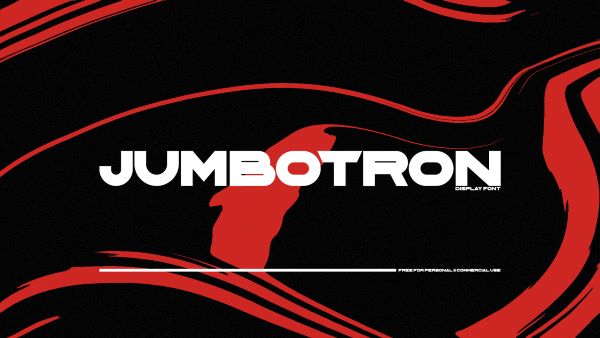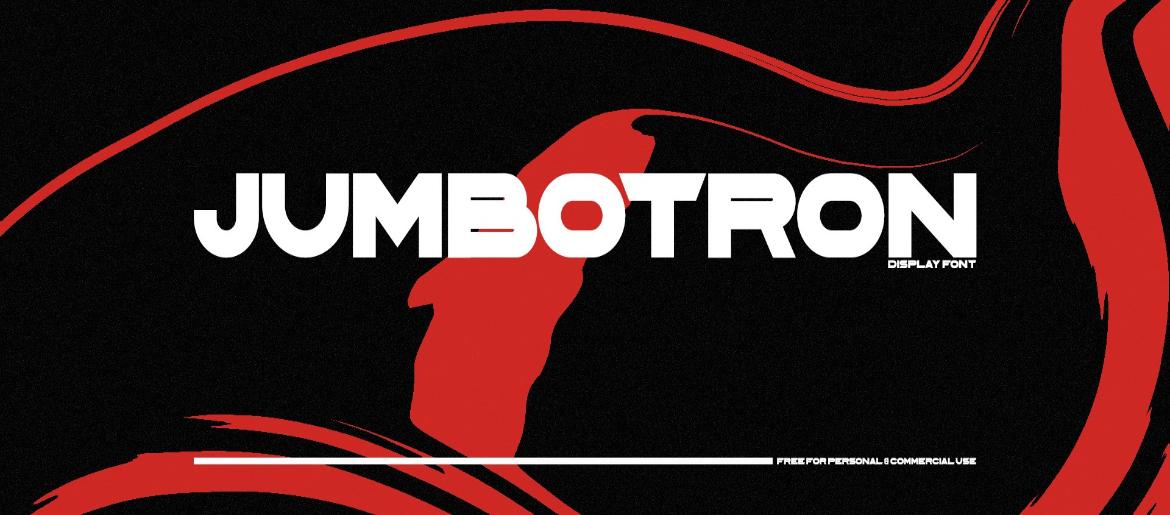
Jumbotron Font
Jumbotron by Ian Langley is a free sans-serif display typeface from New York-based designer Ian Langley — bold, modern, and built for maximum visual presence. Its clean geometric construction and strong stance give it a versatile range of applications spanning sports branding, gaming, futuristic UI design, and any context that calls for a commanding, no-nonsense headline face. The name itself is well chosen: this is a typeface designed to read across distances, in arena-scale contexts where clarity and impact are non-negotiable. Released under a Standard Commercial License, it is genuinely free for both personal and commercial use.